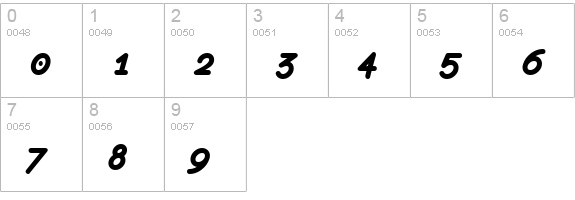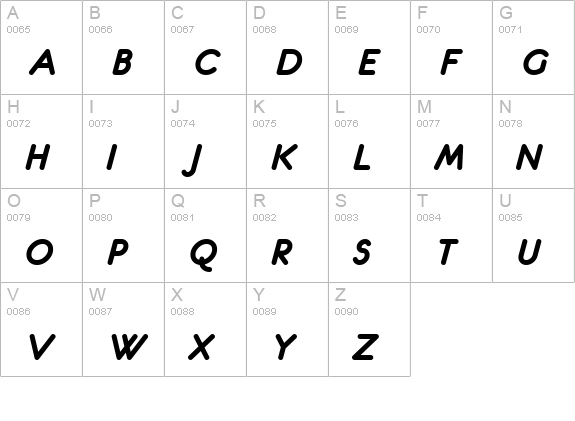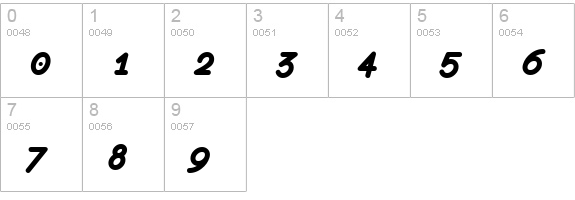
eurofurence bolditalic Font Details
Eurofurence is a stylish and modern font that combines elegance with a bold edge. Its sleek lines and sharp angles make it perfect for creating eye-catching designs that demand attention. The bolditalic style adds a touch of sophistication, making it ideal for projects that require a strong visual impact. What sets Eurofurence apart is its versatility - it can be used across a wide range of design applications, from branding to editorial design. Whether you're working on a poster, logo, or website, Eurofurence will elevate your project to the next level. And the best part? Eurofurence is completely free to download at FontsMarket.com. This means that you can add this stunning font to your collection without any cost, making it a valuable asset for any designer looking to enhance their work. Don't miss out on the opportunity to elevate your designs with Eurofurence bolditalic font - download it for free today!